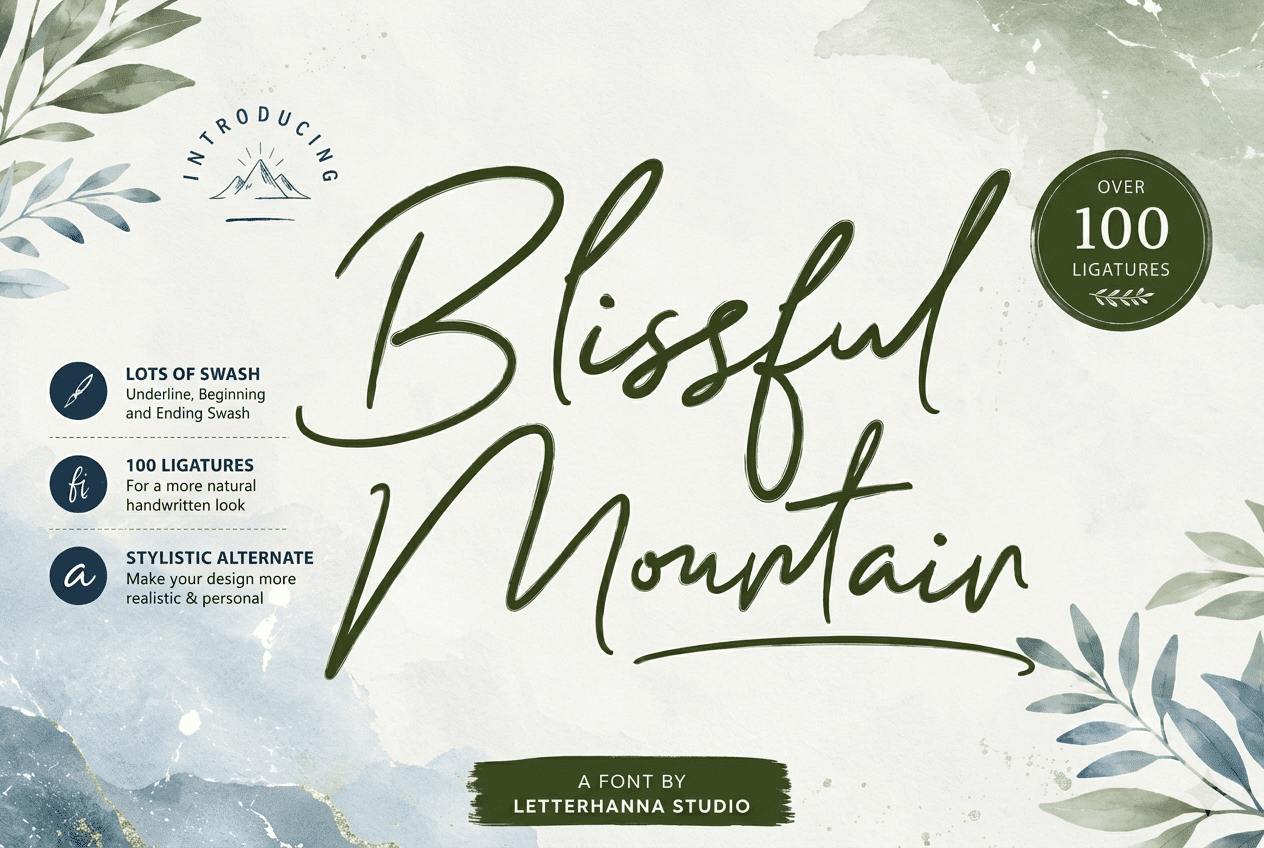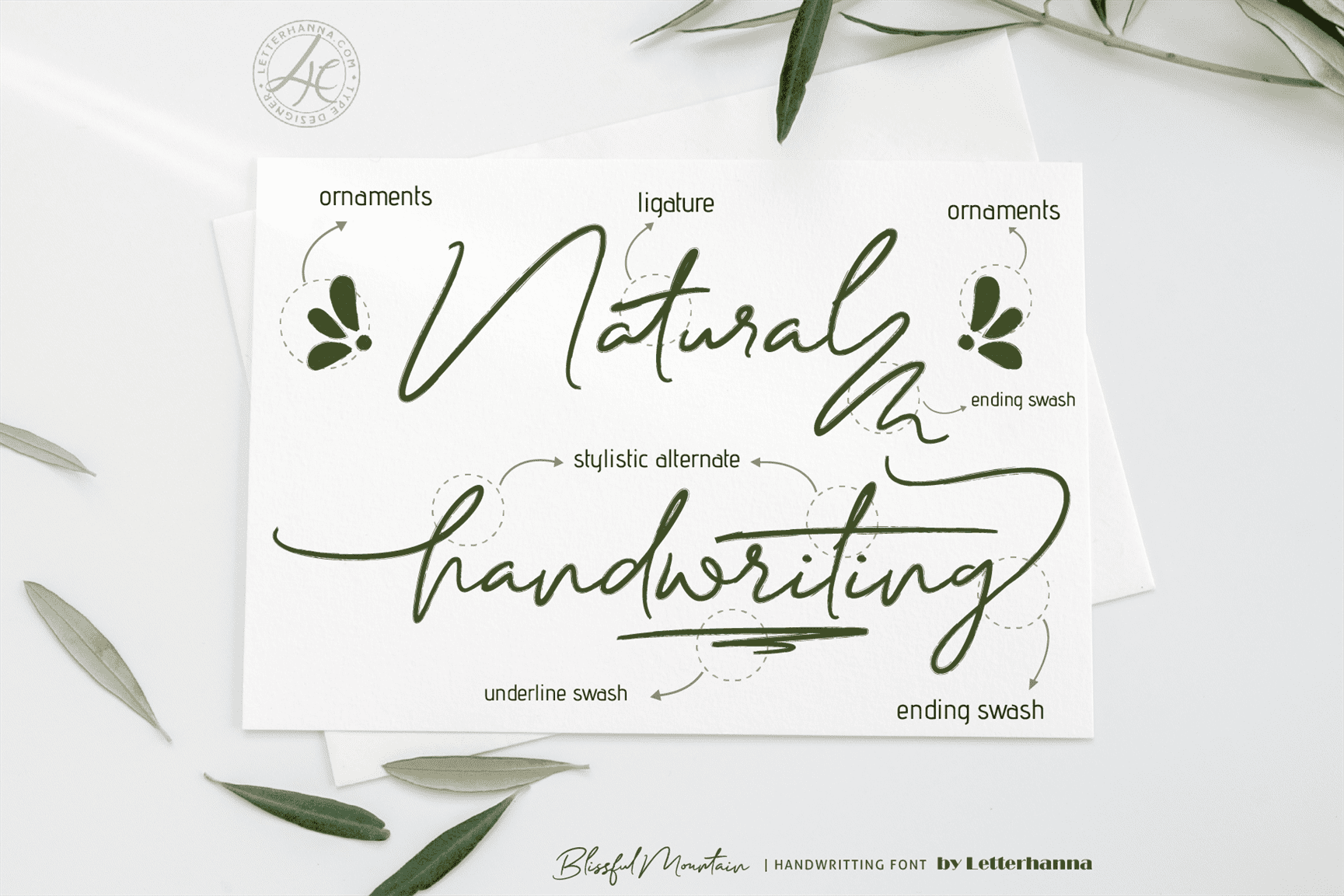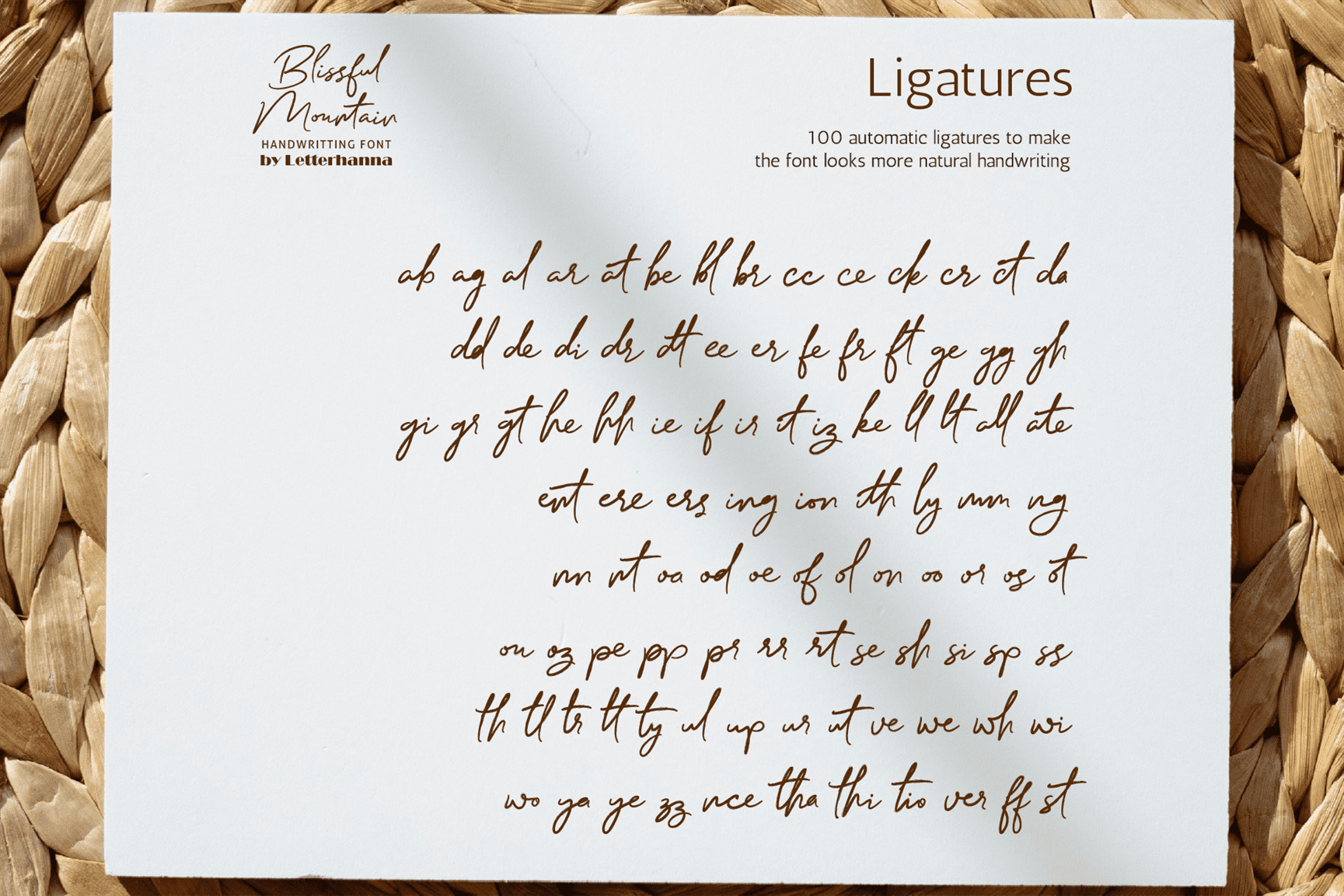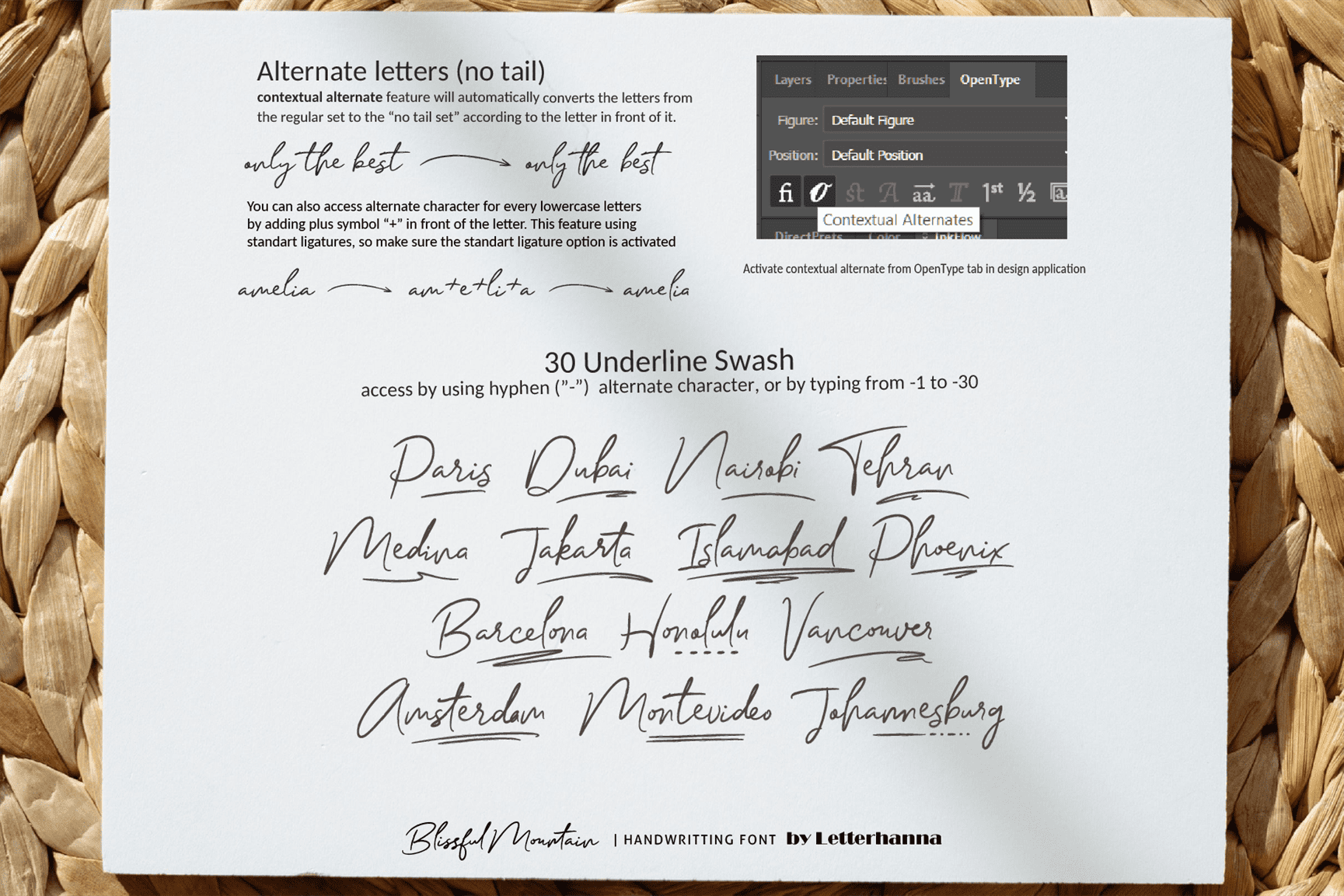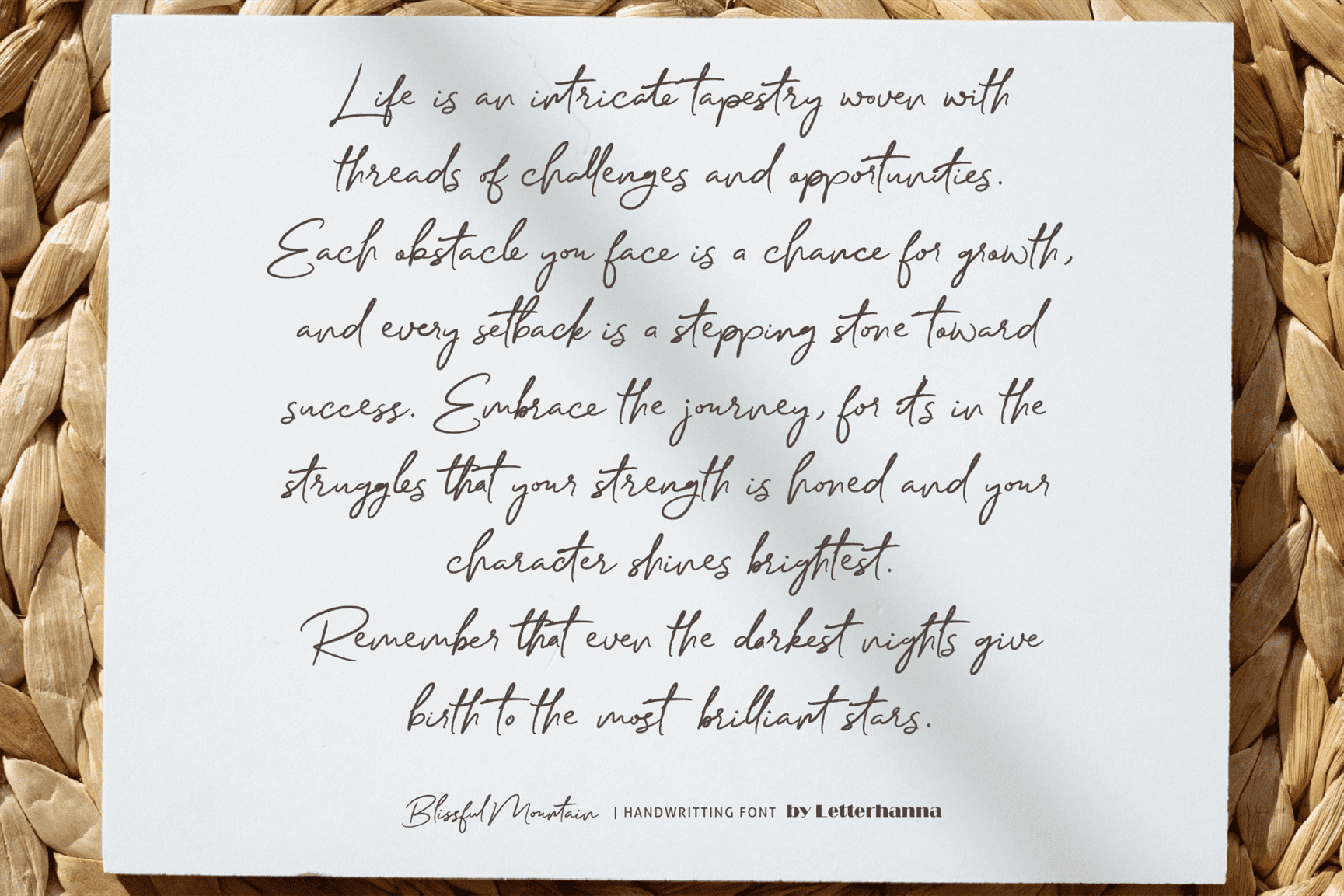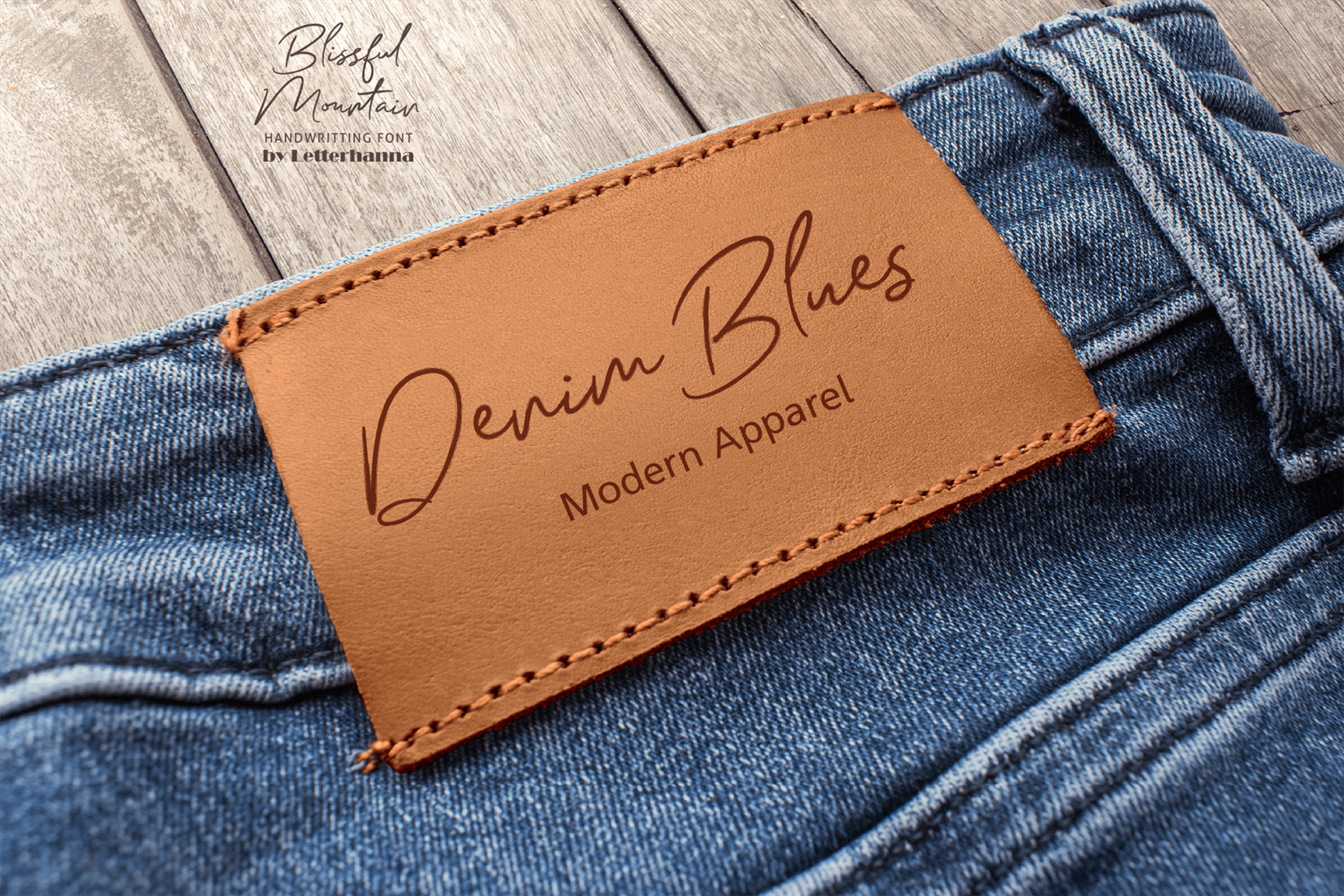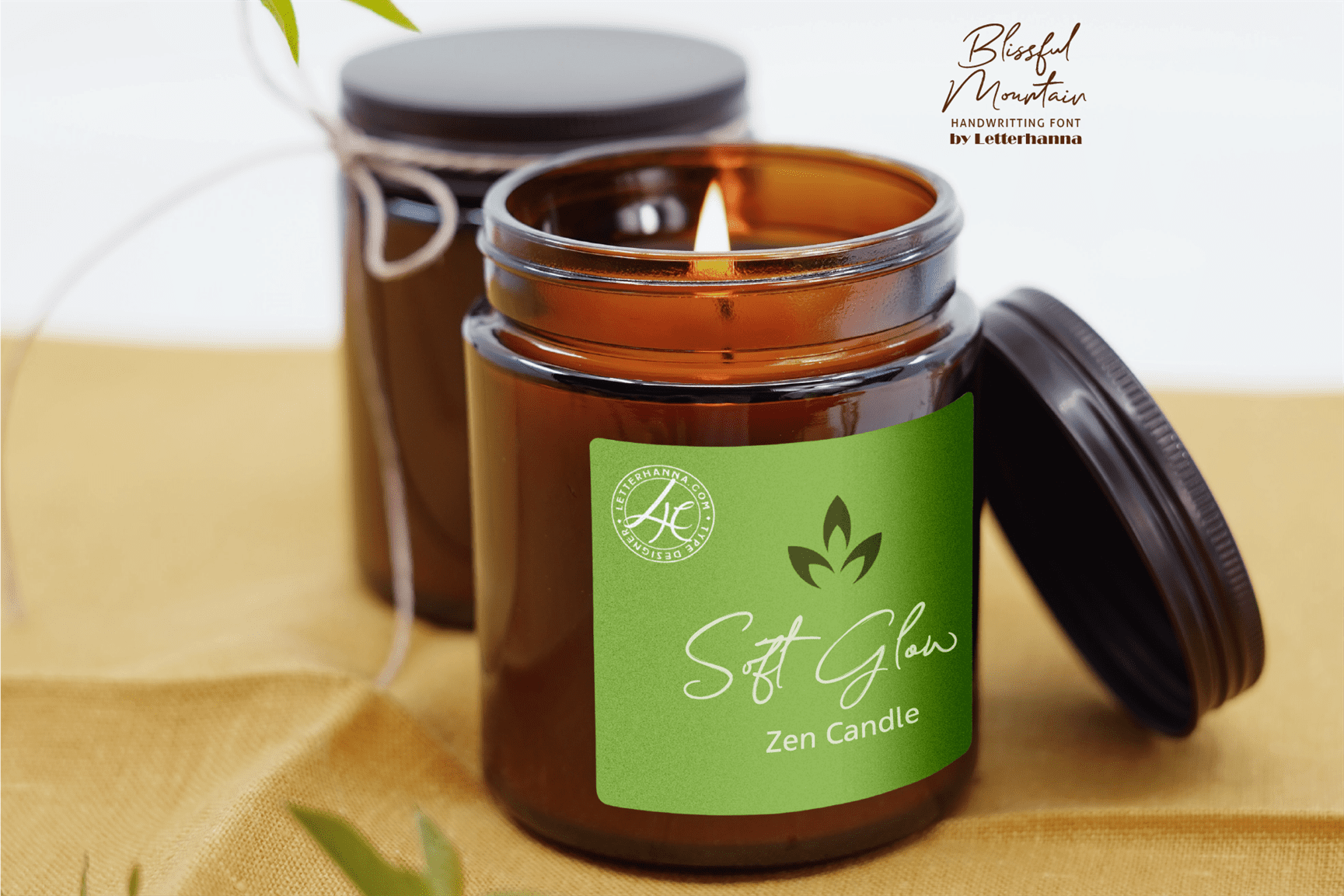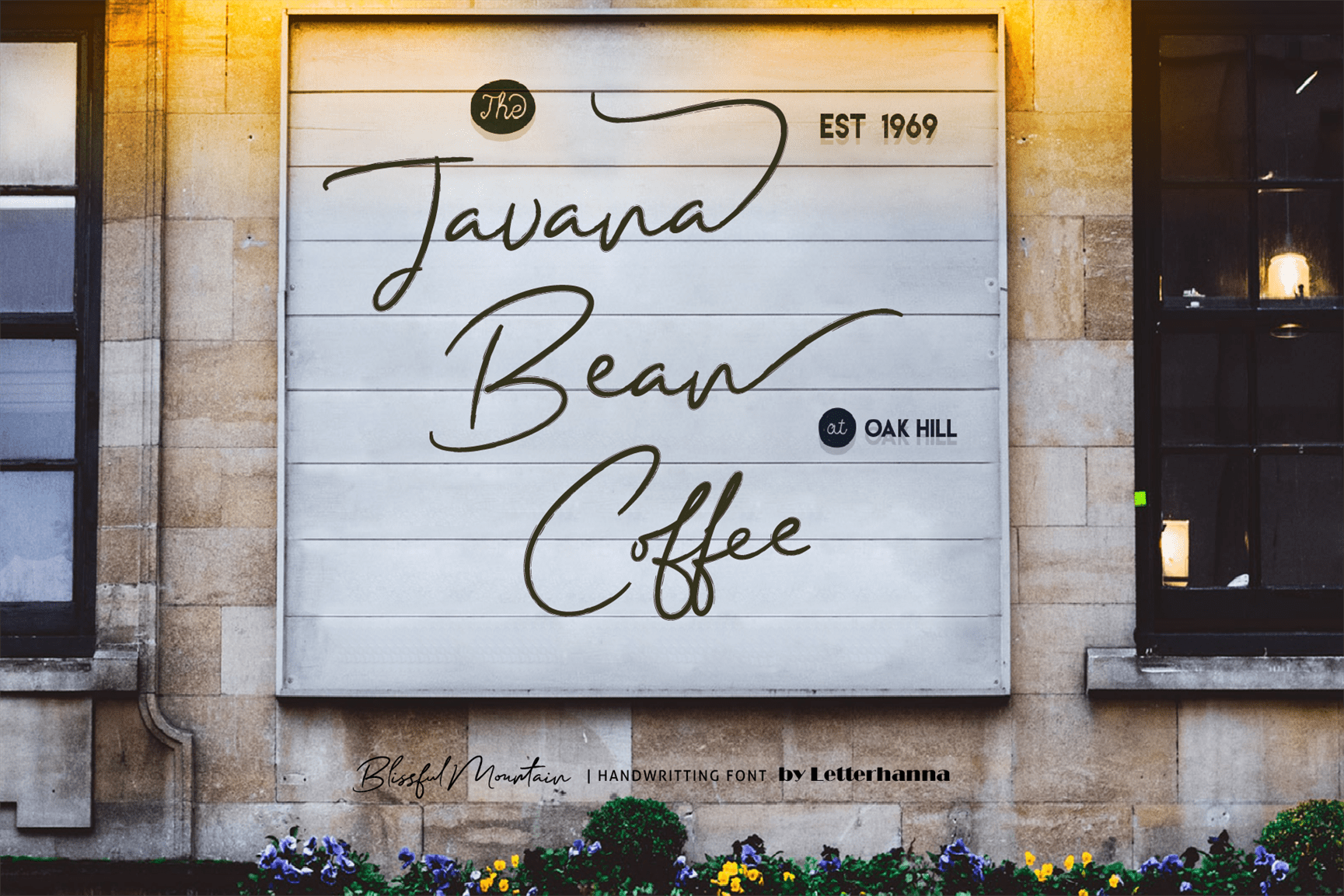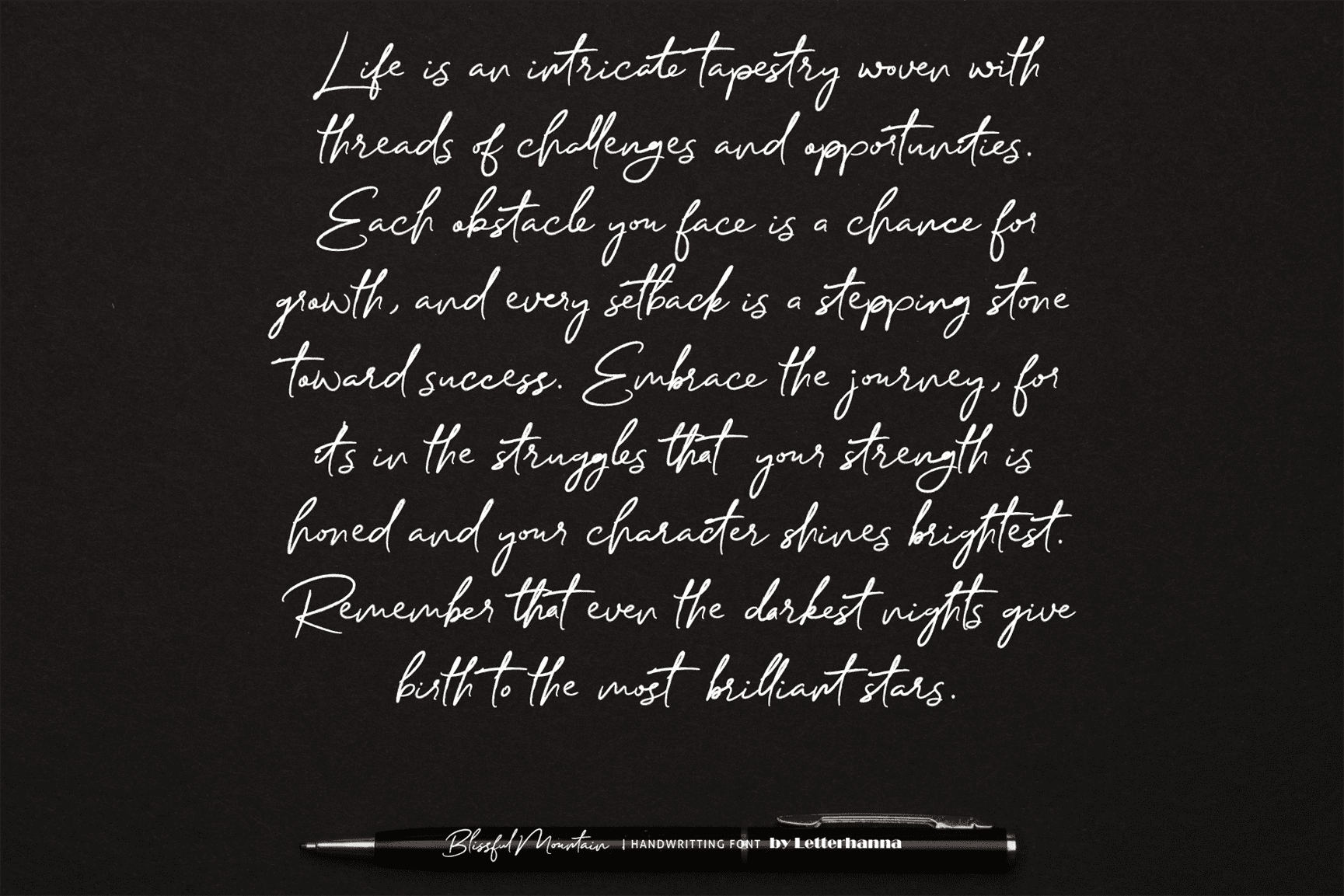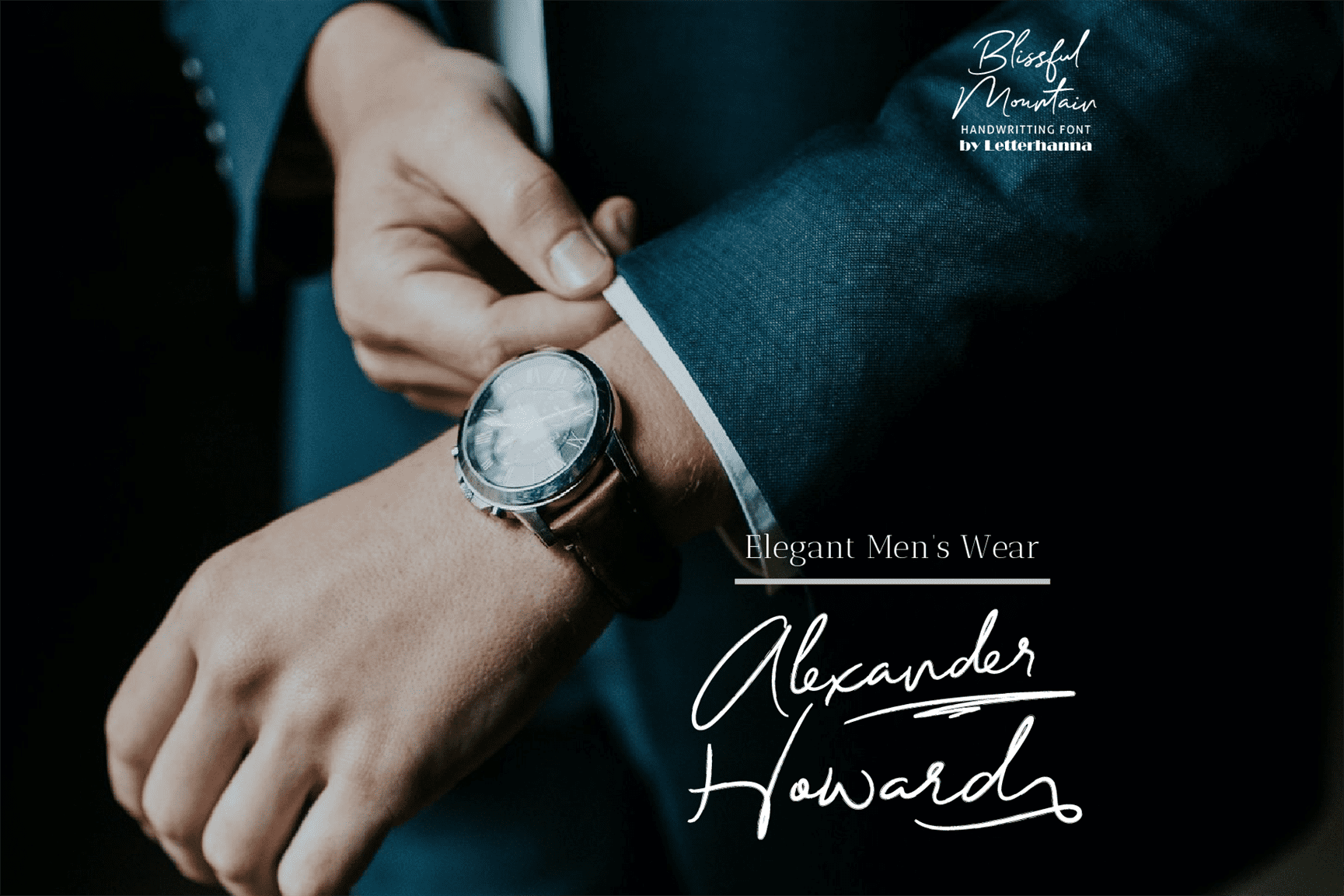
Blissful Mountain: A Brushtype Font That Feels Like a Handwritten Love Letter
There’s something magnetic about a font that doesn’t just sit on the page but seems to move across it. That’s exactly the feeling behind Blissful Mountain, a handwriting brush font by Letterhanna Studio built for anyone chasing that perfect blend of elegance and rawness in their lettering. If you’ve been searching for a brushtype that captures the spontaneity of real handwriting while still looking polished enough for professional design work, this font deserves a spot in your library.
At its core, Blissful Mountain is a brush script font, meaning every stroke mimics the pressure and flow of an actual brush pen gliding across paper. Unlike rigid, uniform typefaces, this style embraces the natural variation you get when a hand is doing the writing instead of a machine. Thick, confident downstrokes taper into delicate, thin lines, giving the letters a sense of rhythm and energy. It’s the kind of typing brush aesthetic that makes text feel personal, as though someone sat down and wrote it just for you.
The Shape and Style
Look closely at the letterforms and you’ll notice tall, looping ascenders paired with long, sweeping descenders that stretch well beyond the baseline. Capital letters like the “B” and “M” carry dramatic curves that almost feel theatrical, while the lowercase letters stay soft and connected, creating that continuous, flowing signature look. This is a hallmark of great brushtype design: contrast between boldness and delicacy in the same breath.
What really sets Blissful Mountain apart is its collection of over 100 ligatures. Ligatures are the small but mighty details that make a brush stroke font feel authentic rather than robotic β special character combinations that connect naturally, avoid awkward overlaps, and mimic the unpredictability of real handwriting. Instead of every “th” or “ing” looking identical every time it appears, these ligatures introduce subtle variety, so your final design reads like it was written by a real hand, not generated by software.
The Vibe
If you had to describe the mood of this font in one word, it would be “organic.” There’s an earthy, botanical energy to Blissful Mountain β think olive branches, kraft paper, watercolor washes, and soft natural light. It doesn’t scream for attention; it invites you in. This makes it a natural fit for wedding invitations, nature-inspired branding, boutique packaging, greeting cards, and any project that wants to feel intimate and handmade rather than mass-produced.
A Little Story Behind the Strokes
Imagine standing at the base of a quiet mountain trail early in the morning, notebook in hand, writing down the first thought that comes to mind before the world gets loud. That unhurried, honest kind of writing is what inspired the name Blissful Mountain. Letterhanna Studio designed this brushtype not to be flawless, but to be felt β every slight wobble in a stroke, every dramatic swoop, tells you a story was written here, not just typed. It’s a font that remembers where good design started: with a hand, a tool, and a feeling worth capturing.
Why Designers Keep Coming Back to Brush Script Fonts Like This
Brush script fonts have surged in popularity because they add a human touch to digital design, something audiences crave in a world full of sterile, corporate typefaces. A well-crafted brushtype like Blissful Mountain bridges that gap between analog charm and digital convenience. You get the warmth of handwriting with the flexibility of a scalable, editable font file β perfect whether you’re designing a logo, a social media graphic, a product label, or a printed keepsake.
Whether you’re a brand designer looking for a signature typeface, a small business owner crafting packaging that feels personal, or a hobbyist creating custom stationery, Blissful Mountain offers the authenticity that generic fonts simply can’t replicate. With its expansive ligature set, graceful brush strokes, and unmistakably organic vibe, this font is ready to elevate any project that calls for a little more heart.